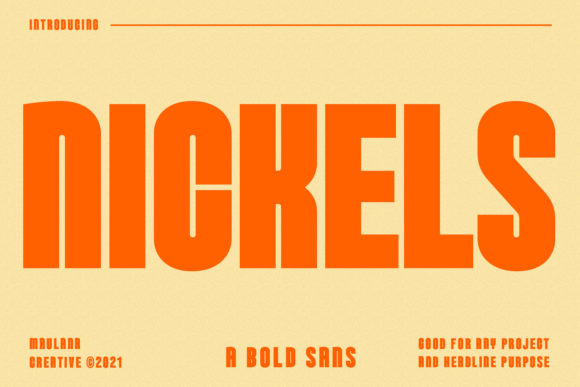
Nickels Font: An Expressive and Unforgettable Sans Serif Font For Your Creative Endeavors
Step into the realm of typography with Nickels Font, a striking and bold sans serif font crafted by Maulana Creative. Its thick, assertive letterforms exude an aura of confidence and impact, making it the perfect choice for captivating headlines, eye-catching logos, and impactful marketing materials.
Unleash the Power of Nickels:
1. A Timeless Classic: Immerse yourself in the beauty of Nickels, a font that transcends fleeting trends and remains a timeless classic. Its enduring charm ensures that your designs will retain their relevance and appeal for years to come.
2. Versatility Unleashed: Experience the boundless versatility of Nickels, a font that effortlessly adapts to a myriad of design projects. From elegant wedding invitations to playful social media graphics, Nickels seamlessly blends into any genre, elevating your creations with its distinctive character.
3. Make a Statement: Bold and unapologetic, Nickels commands attention wherever it goes. Its thick, dense strokes create a visual feast that demands to be seen, making it ideal for projects that demand impact and leave a lasting impression.
4. Readability Redefined: Despite its bold presence, Nickels retains a remarkable level of readability, ensuring that your message is conveyed clearly and effectively. The font's carefully crafted letterforms ensure that even in smaller sizes, your words remain legible and impactful.
5. A Creative's Dream: Open the door to boundless creativity with Nickels, a font that fuels your imagination and empowers you to bring your visions to life. Whether you're a seasoned designer or just starting your creative journey, Nickels is the perfect companion for transforming your ideas into tangible works of art.
Elevate Your Designs with Nickels:
- Websites that Captivate: Craft websites that exude professionalism and leave a lasting impression. Nickels' bold presence is perfect for creating headlines that command attention and body text that conveys authority.
- Logos that Speak Volumes: Design logos that embody strength and individuality. Nickels' thick, confident strokes create logos that stand out from the crowd and leave a lasting imprint on your audience's minds.
- Social Media Graphics that Pop: Engage your followers with social media graphics that burst with personality. Nickels adds an extra layer of visual interest to your posts, making them impossible to ignore.
- Marketing Materials that Convert: Create marketing materials that resonate with your target audience and drive conversions. Nickels' striking presence adds a touch of elegance and sophistication that sets your materials apart from the competition.